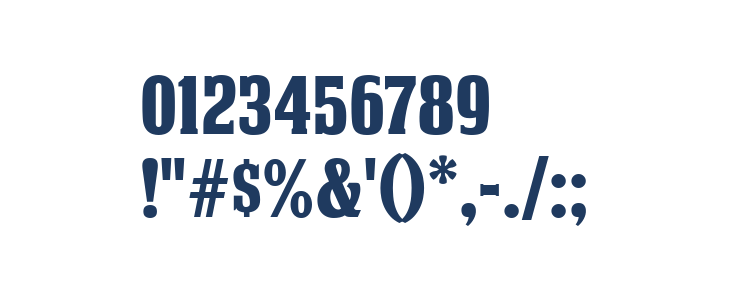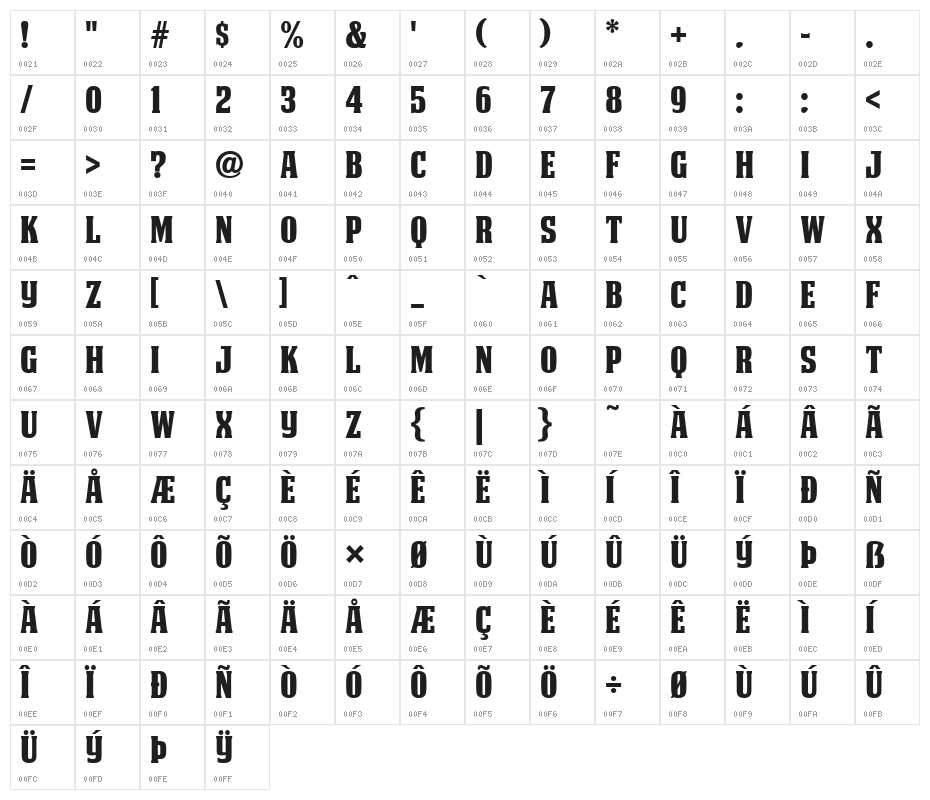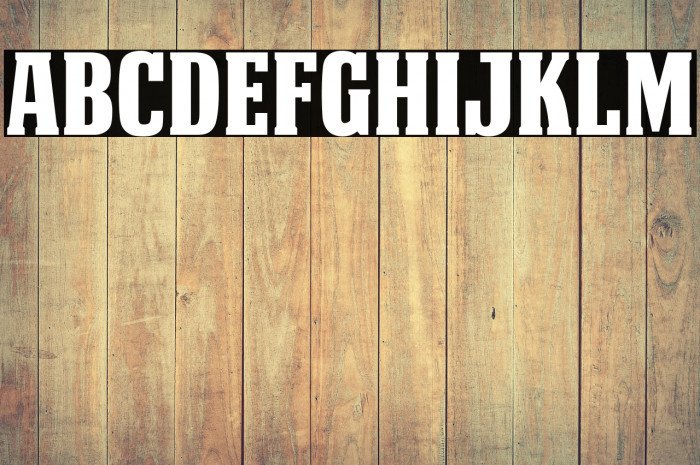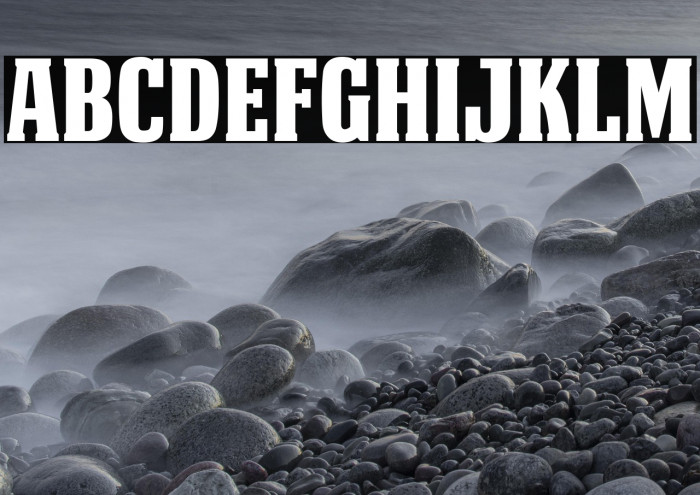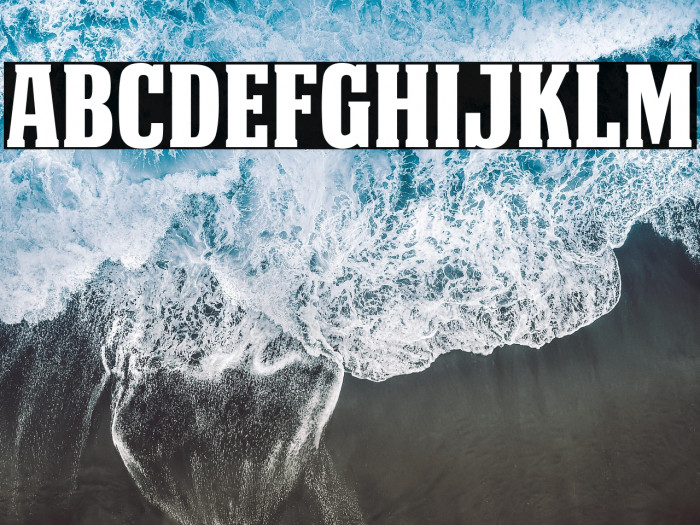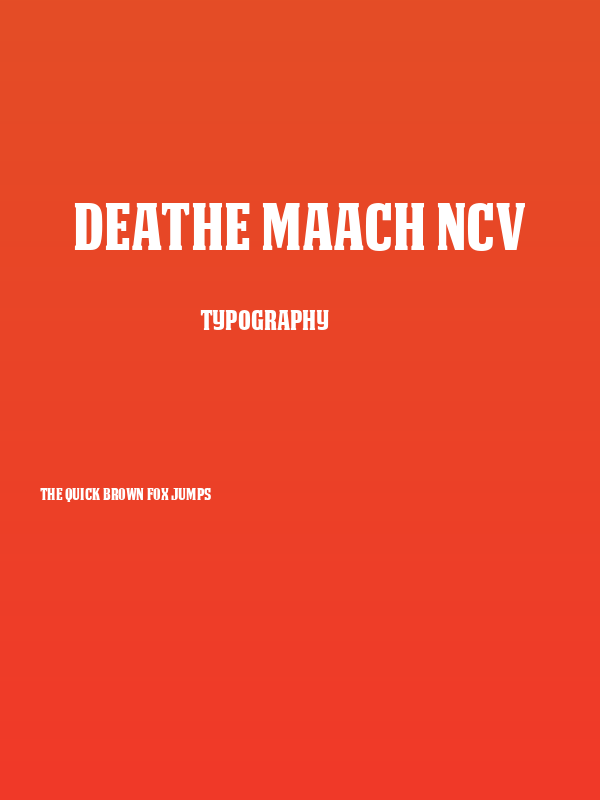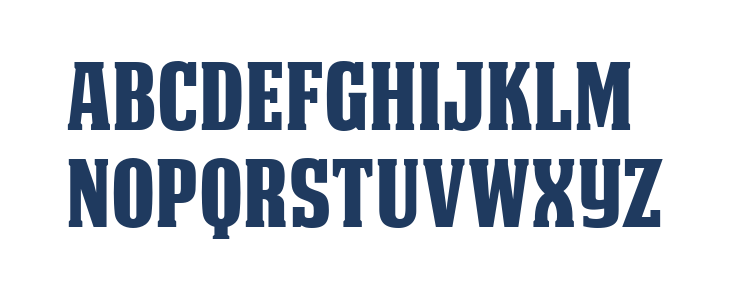
DEATHE MAACH NCV Font
DEATHE MAACH NCV Description
This font features bold, impactful characters with a strong presence. The uppercase letters are robust and commanding, with thick strokes and a slight serif that adds a touch of classic elegance. The numbers are equally bold, ensuring readability and a consistent visual weight across all characters. The special characters are designed to match the overall boldness, making them stand out effectively. This font is ideal for projects that require a strong, authoritative look, such as posters, headlines, and branding materials.
Overall StyleClassic
Proposed ProjectsIdeal for posters, headlines, branding, and any project requiring a strong, authoritative presence.